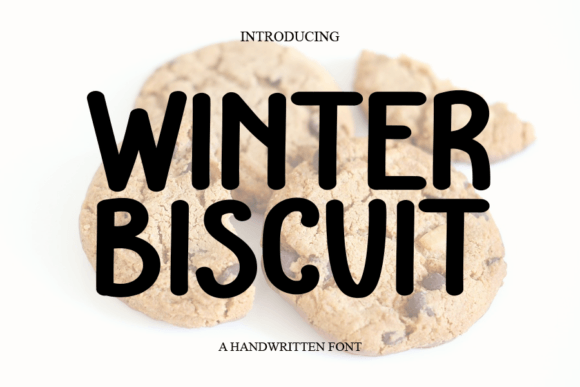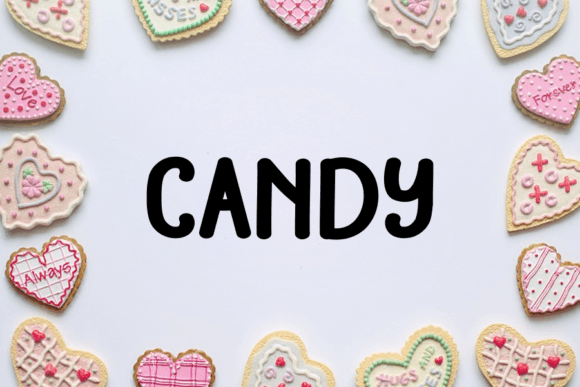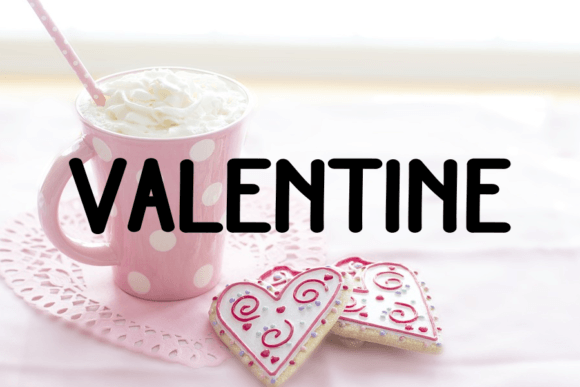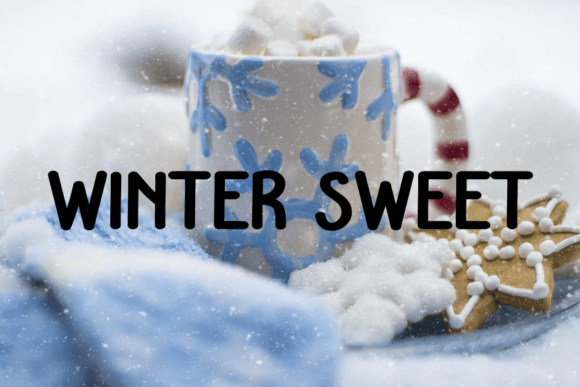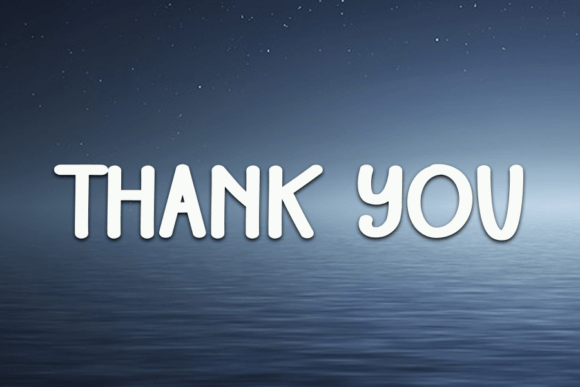
Winter Biscuit Font
About Winter Biscuit Font
Winter Biscuit Font is a fun handwritten script that blends friendliness with creativity. With smooth strokes and playful curves, this typeface brings charm and warmth to every project. Because of its versatile style, Winter Biscuit Font is suitable for crafts, invitations, presentations, logos, and digital creative work.
A Fun Handwritten Typeface with Personality
Handwritten fonts are known for their natural appeal, and Winter Biscuit Font enhances that with a lively, approachable design. Its strokes balance casual energy with clarity, ensuring that text looks stylish while remaining easy to read. Moreover, its cheerful structure adapts well to both professional and personal layouts. As a result, it is an excellent choice for adding personality to creative work.
Perfect Typeface for Crafts and Greeting Cards
If you love creating crafts, greeting cards, or stationery, Winter Biscuit Font will be a reliable companion. For example, it can turn a simple birthday card into a playful keepsake. In addition, it works wonderfully for wedding invitations, seasonal notes, and thank-you cards. Because of its cheerful energy, every message feels more memorable and heartfelt.
A Script Typeface for Logos and Branding
Businesses and designers can also benefit from the friendly character of Winter Biscuit Font. Logos, labels, and packaging gain charm when designed with this typeface. Furthermore, on social media, it helps posts, stories, and promotional graphics stand out with an approachable look. When paired with clean sans serif fonts, it creates harmony between fun and professionalism.
Another advantage of Winter BiscuitFont is its adaptability across different mediums. In print, it looks excellent on posters, flyers, brochures, and merchandise. Digitally, it enhances websites, blogs, and presentation slides. Since its form remains legible at both small and large sizes, it provides consistency for diverse design needs.